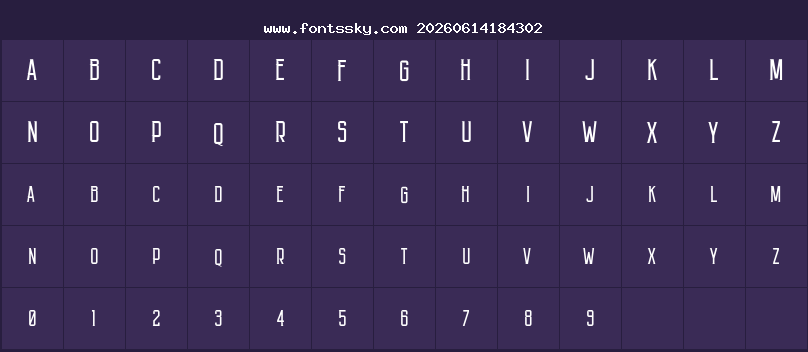
• Font Name: Angkasa
• Full Font Name: Angkasa Regular
• Designer: Rokoe Type
About Angkasa.otf
Angkasa.otf is a modern, elegant sans-serif font designed for ultimate readability and visual harmony. Perfect for branding, headlines, web design, and print materials.